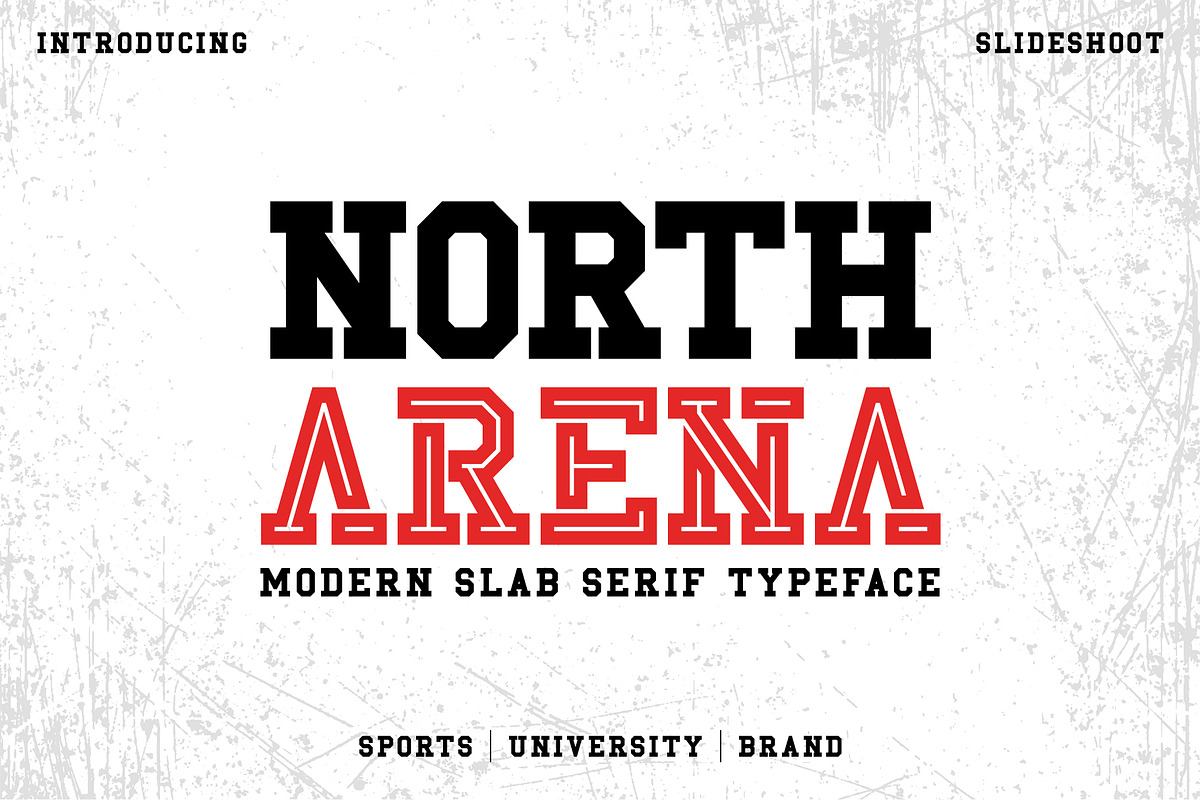
North Arena - Slab Serif Font Free Download
North Arena - Slab Serif Font Free Download is a strong and confident typeface designed with bold slab serifs and classic structure. Inspired by vintage sports typography and industrial design, North Arena is perfect for athletic branding, editorial headlines, posters, team merchandise, and bold logo work. It offers a rugged yet refined aesthetic that commands attention.
Its solid letterforms and sturdy style make it ideal for both digital and print formats, where readability and impact are key. Whether you're designing for a gym, a retro label, or an urban clothing line, North Arena delivers strength and style.